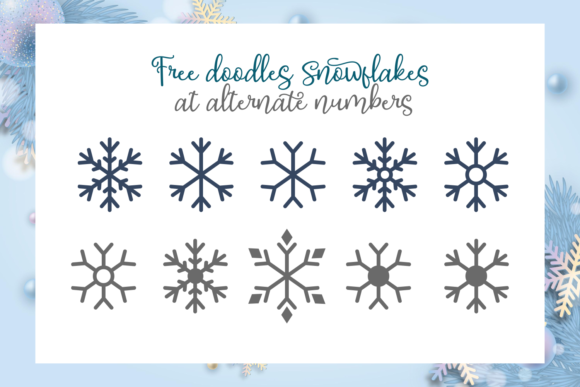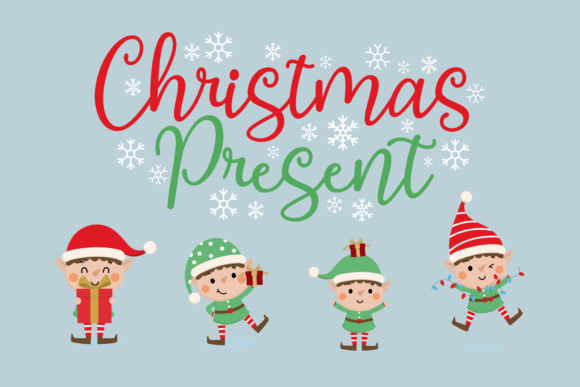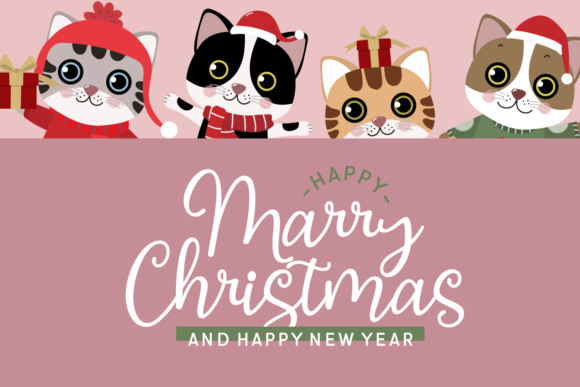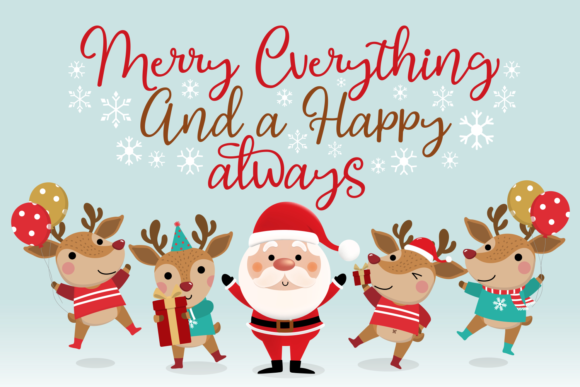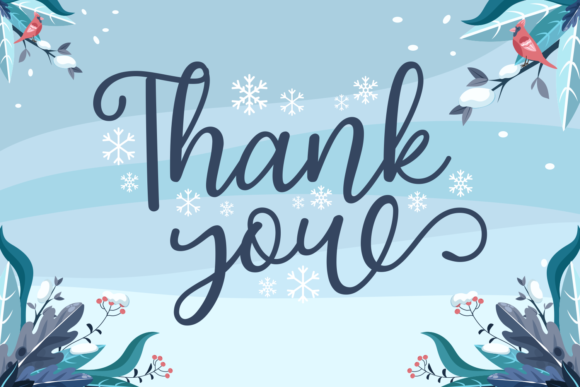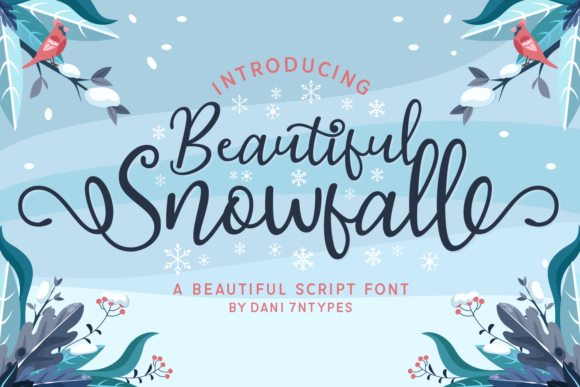
Introducing Beautiful Snowfall Font: Elevate Your Designs with Elegance
Are you looking for a font that adds a touch of sophistication and refinement to your designs? Look no further than the Beautiful Snowfall Font. This lovely and delicate script font is specifically crafted for designers and crafters who need a beautiful and refreshing look to their projects. With its elegant and classy feel, Beautiful Snowfall Font is perfect for a wide range of design applications, from wedding invitations and branding to packaging and digital graphics.
What Makes Beautiful Snowfall Font Special?
Beautiful Snowfall Font is more than just a pretty face. This font was designed with versatility and ease of use in mind. Here are just a few features that make it stand out:
- PUA Encoding: Beautiful Snowfall Font is PUA (Private Use Area) encoded, which means you can access all of the glyphs and swashes with ease. This makes it simple to customize your designs and add unique touches.
- Elegant and Delicate: The font’s script style is both elegant and delicate, making it perfect for designs that require a touch of sophistication.
- Refreshing Look: Beautiful Snowfall Font is designed to add a refreshing look to your designs. Its unique and stylish appearance will set your projects apart from the rest.
Beautiful Snowfall Font is a versatile font that can be used in a wide range of design applications. Here are just a few examples of how designers and crafters can use this font:
- Wedding Invitations: Add a touch of elegance to your wedding invitations and save-the-date cards with Beautiful Snowfall Font.
- Branding: Use Beautiful Snowfall Font to create a sophisticated brand identity for your business or product.
- Packaging: Add a touch of class to your product packaging with Beautiful Snowfall Font.
- Digital Graphics: Use Beautiful Snowfall Font to create stunning digital graphics, such as social media graphics and blog headers.
Tips for Using Beautiful Snowfall Font
Here are a few tips for getting the most out of Beautiful Snowfall Font:
- Pair with Other Fonts: Beautiful Snowfall Font pairs well with other fonts, such as sans-serif fonts and serif fonts. Experiment with different pairings to find the perfect combination for your design.
- Use Swashes and Glyphs: Take advantage of the font’s PUA encoding by using the swashes and glyphs to add unique touches to your design.
- Experiment with Colors: Beautiful Snowfall Font looks great in a variety of colors. Experiment with different colors and textures to find the perfect look for your design.
Beautiful Snowfall Font is a lovely and delicate script font that adds a touch of elegance and class to any design. With its PUA encoding and elegant appearance, it’s perfect for designers and crafters who need a beautiful and refreshing look to their projects. Whether you’re creating wedding invitations, branding, packaging, or digital graphics, Beautiful Snowfall Font is a versatile font that is sure to impress.